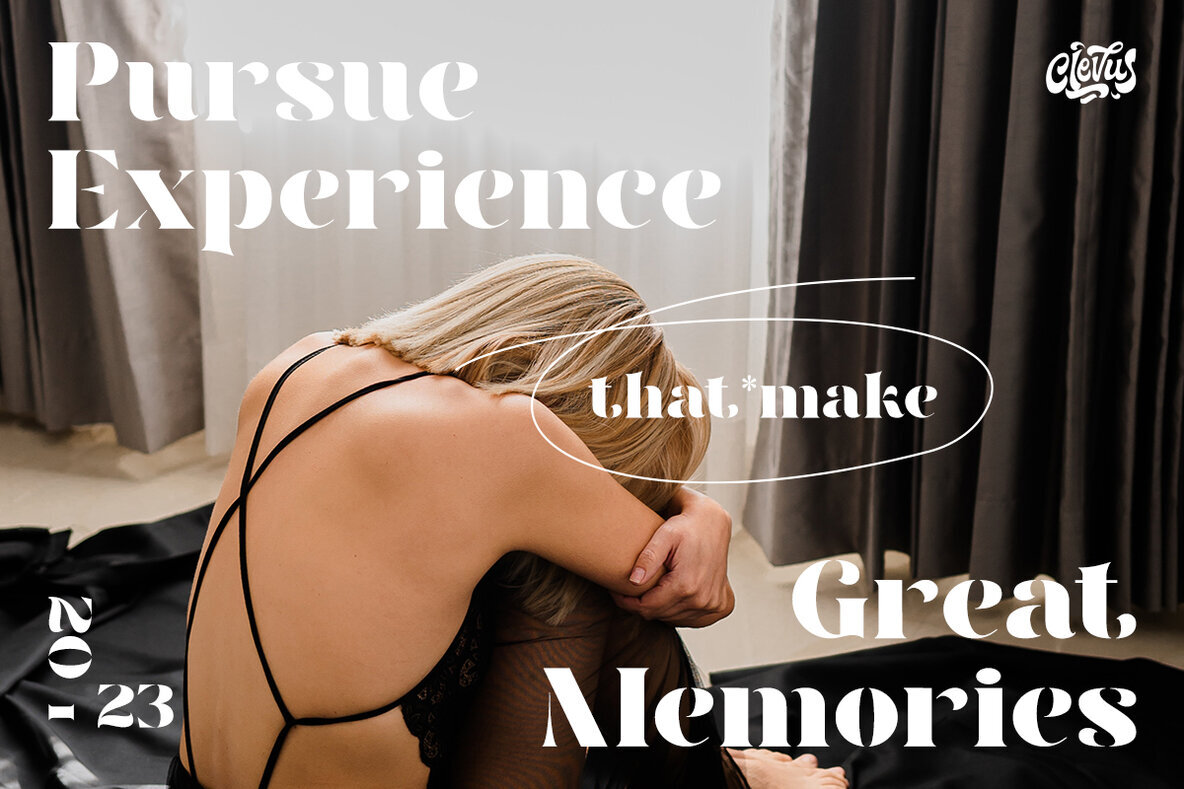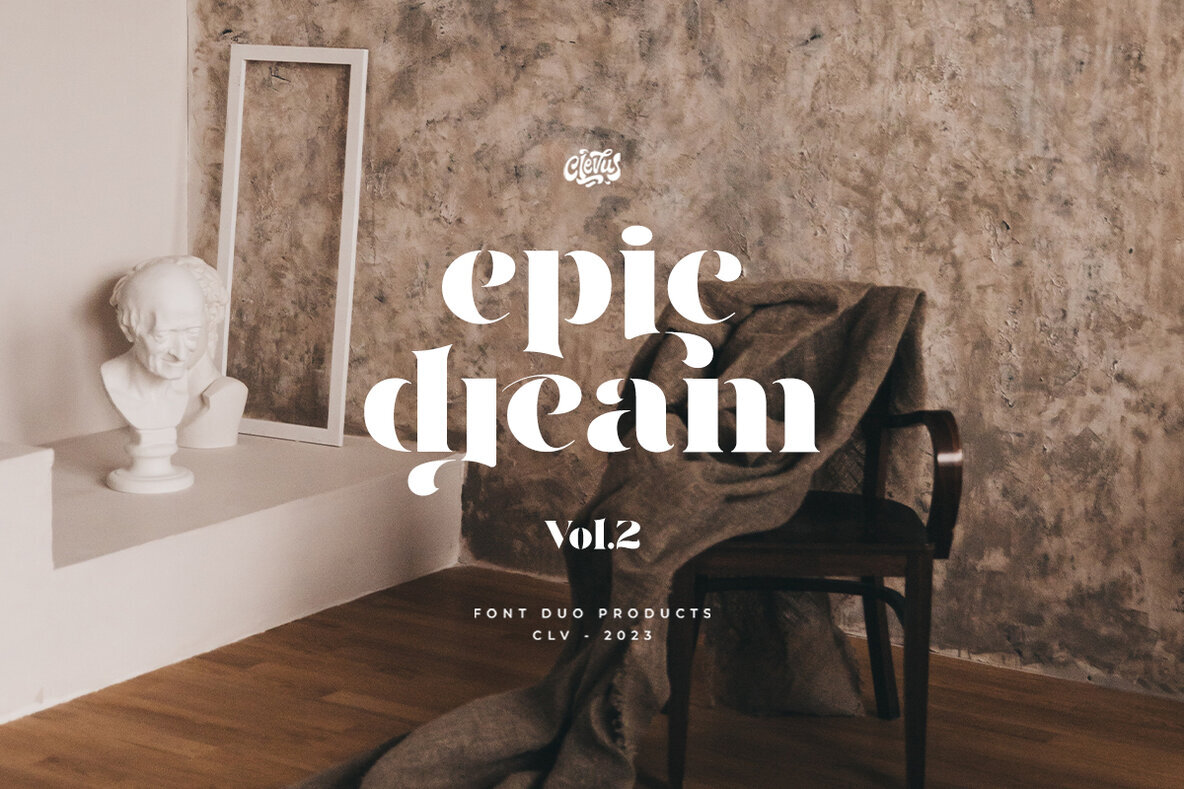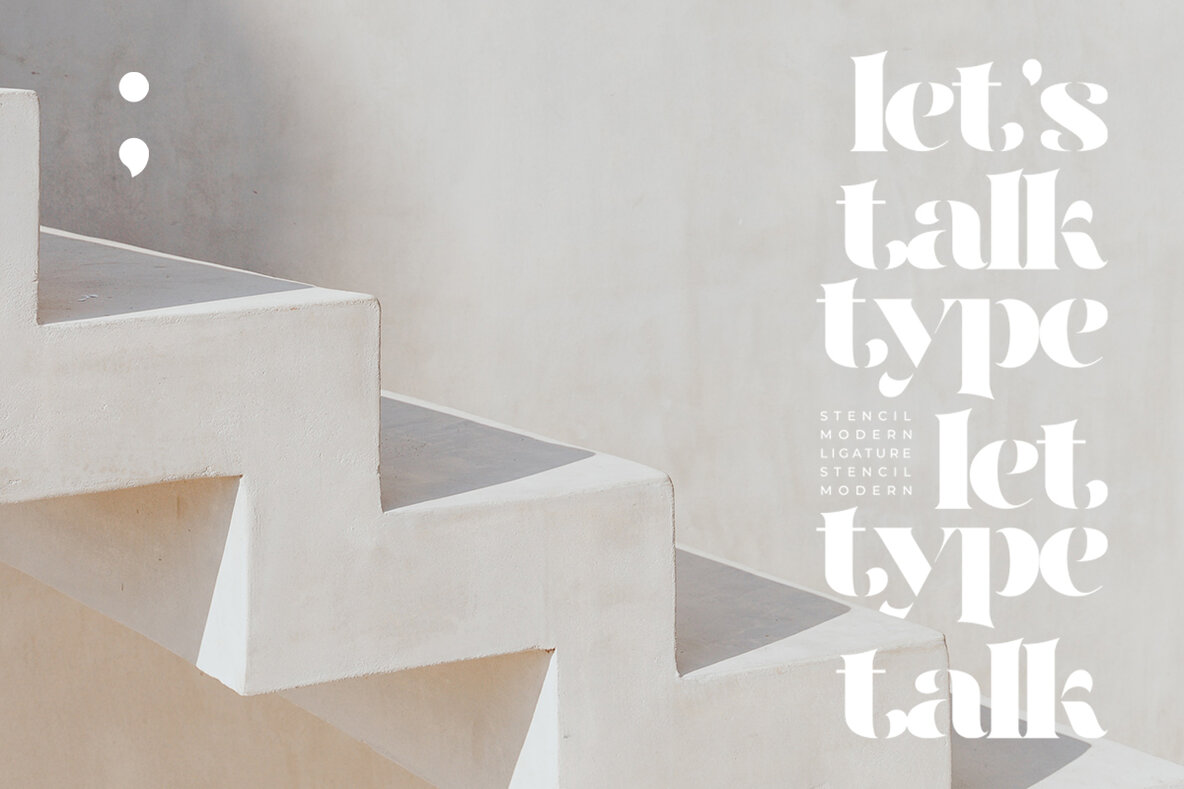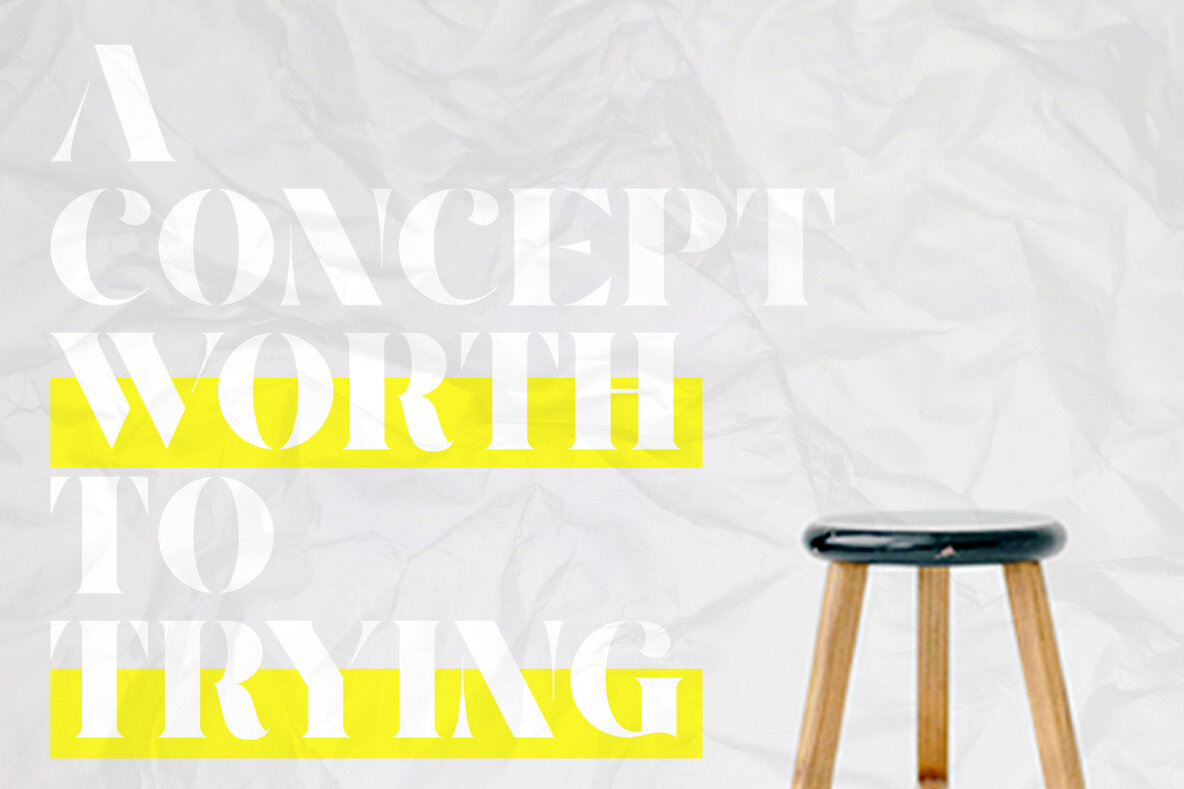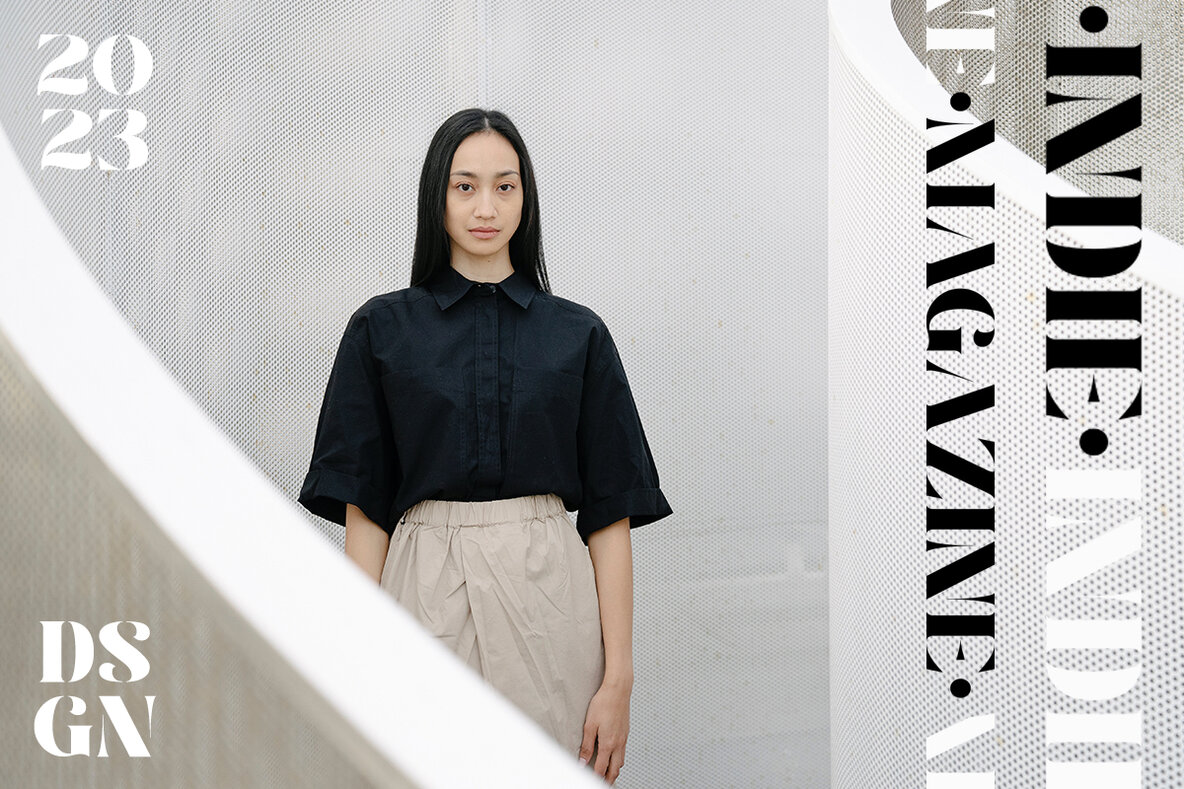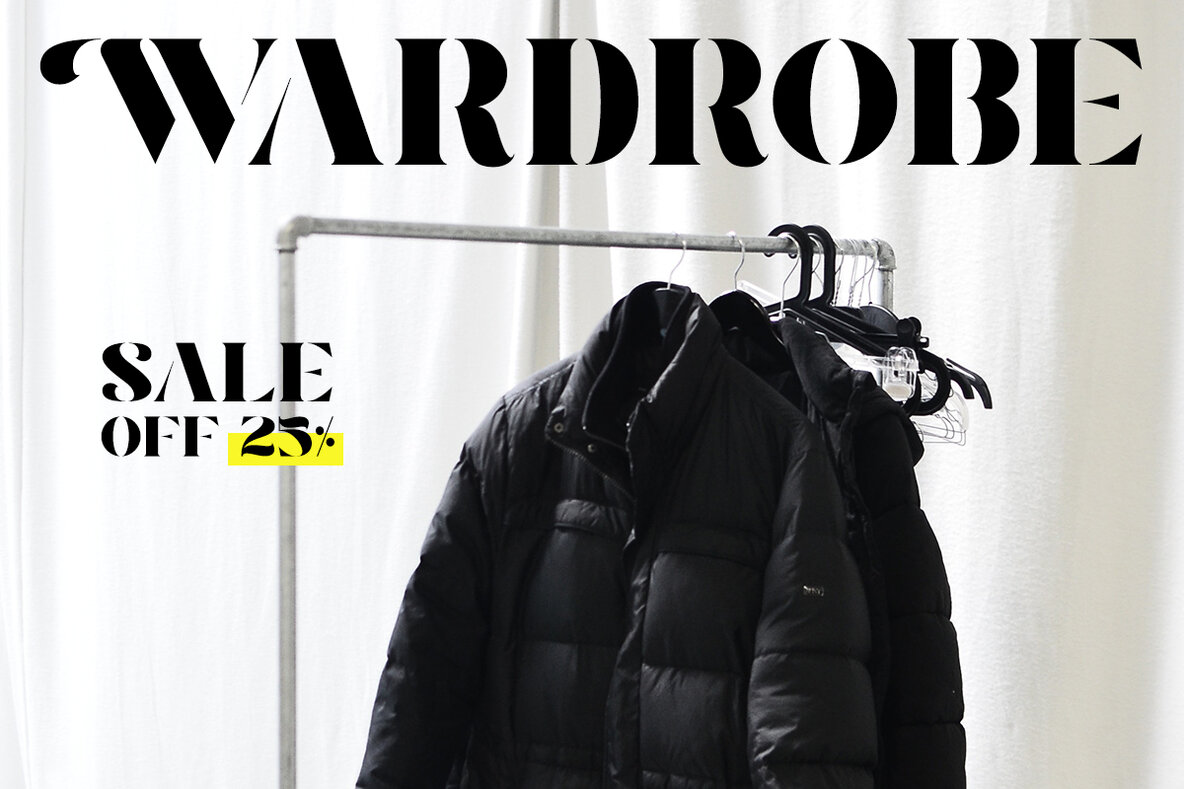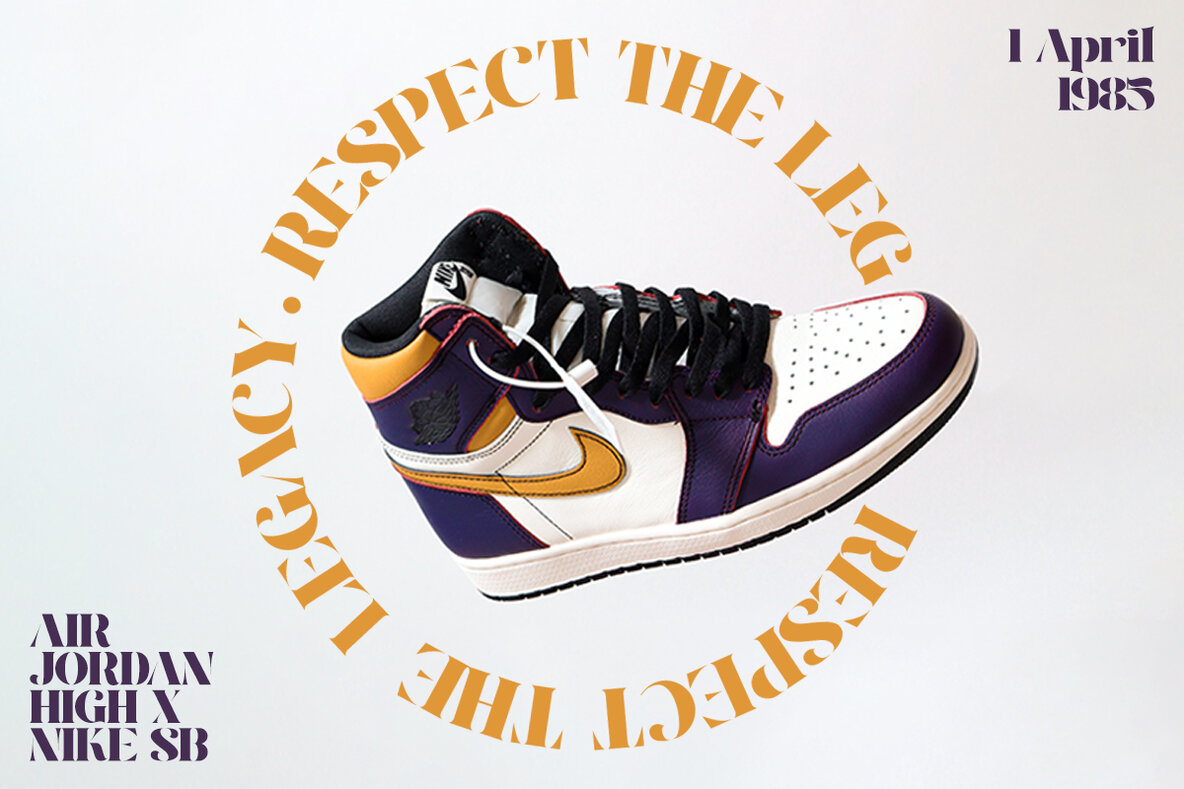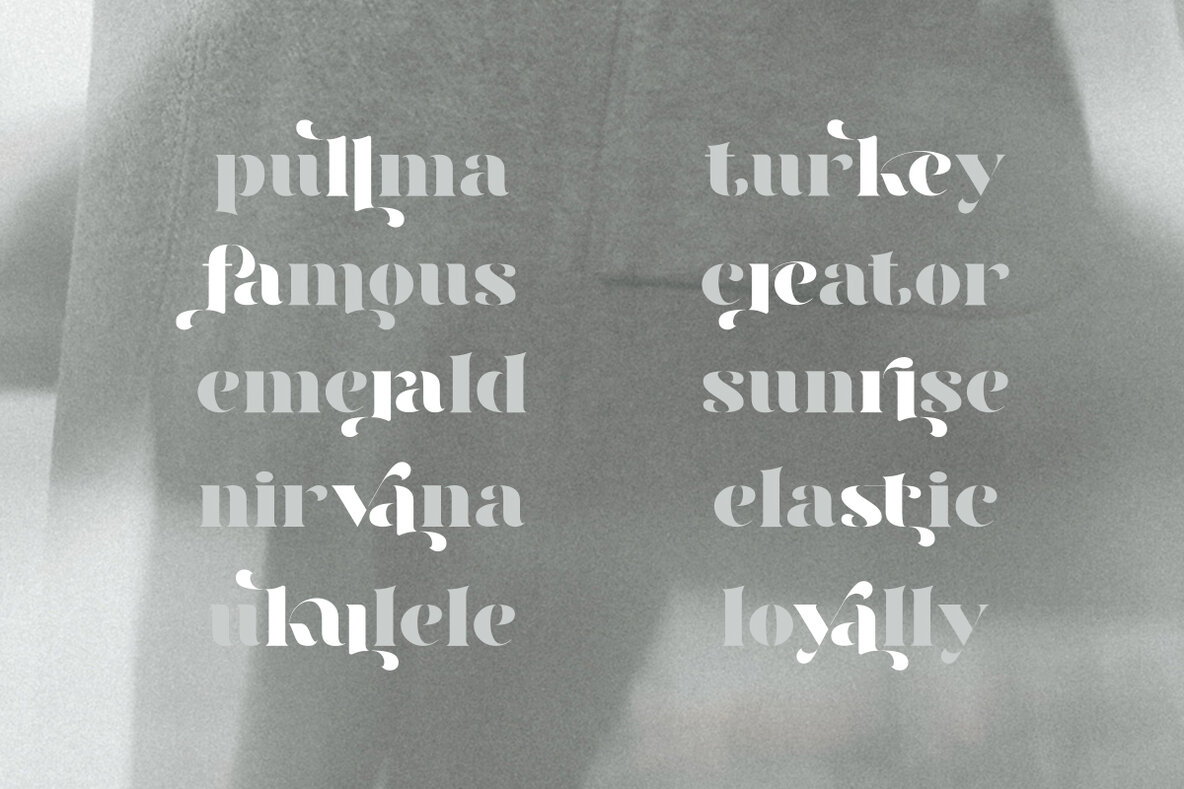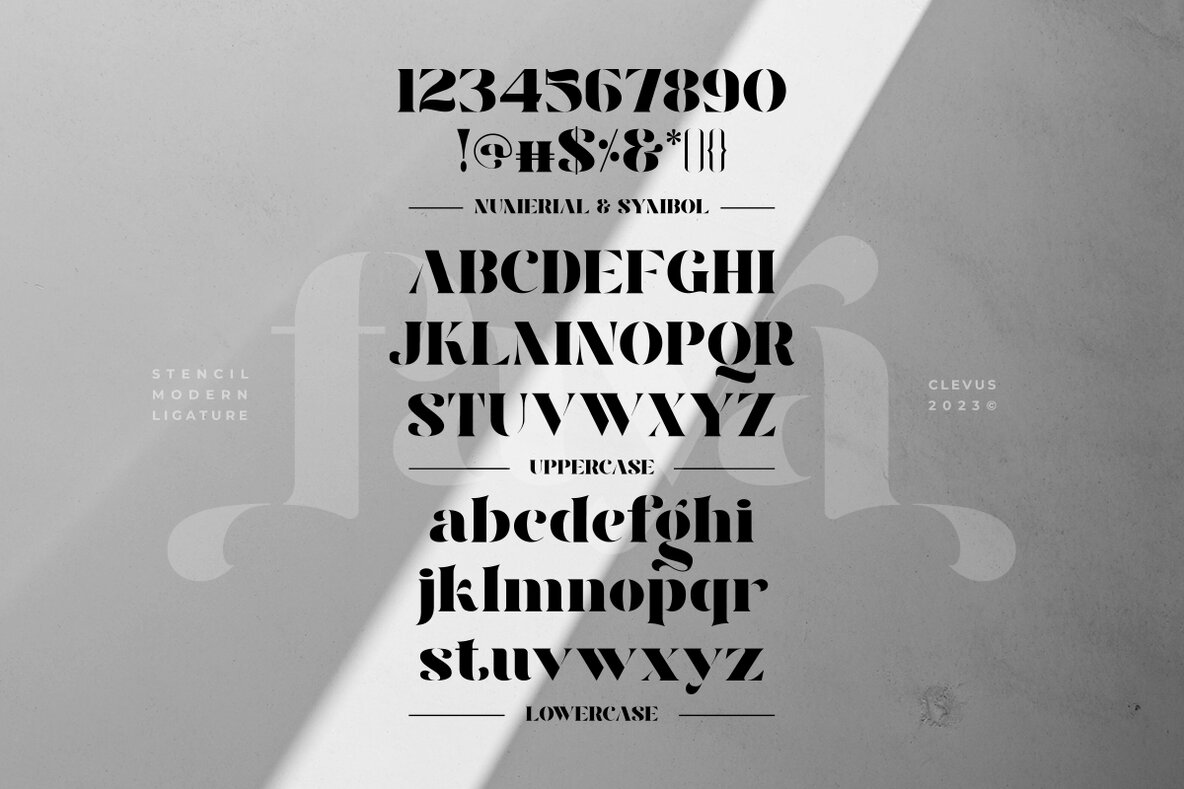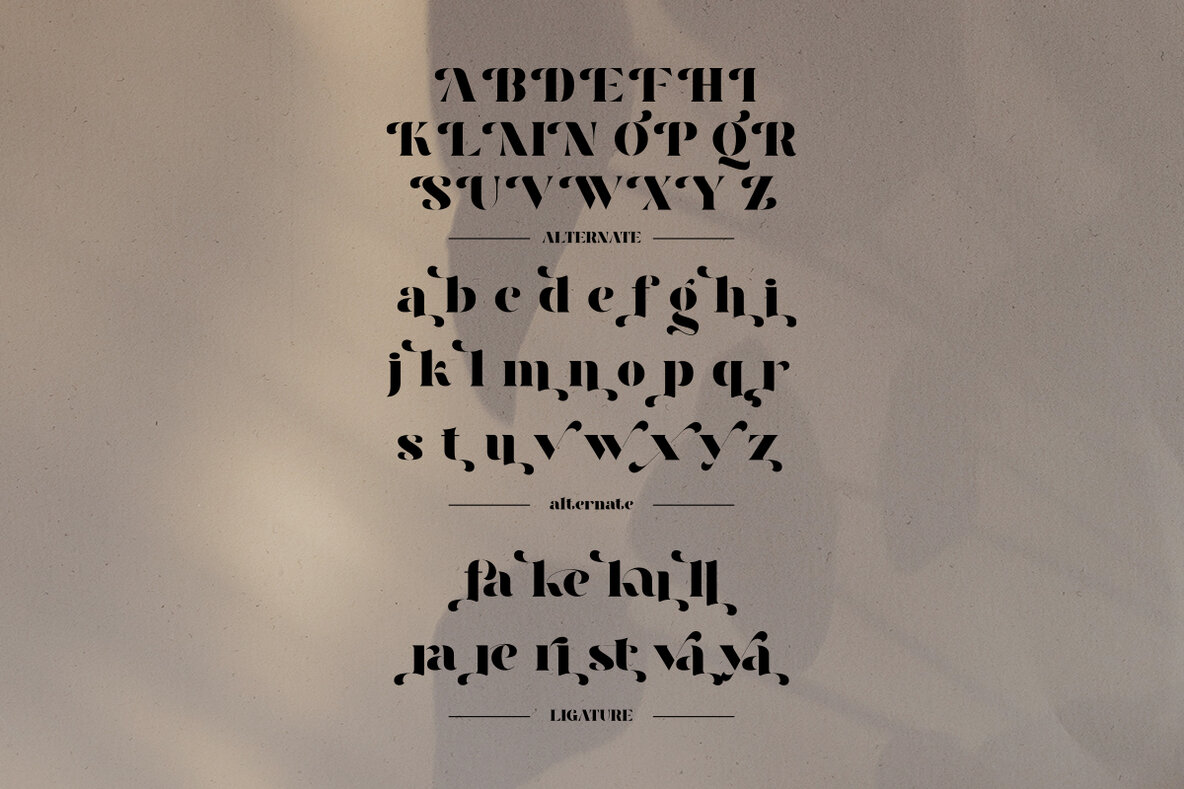
Faya Font
faya
Faya is a font designed with a modern stencil style that blends classic elements with elegant contemporary touches. Featuring ligatures that offer design flexibility, Faya is suitable for various graphic design needs, including posters, banners, logos, and more. Crafted with meticulous attention to detail, Faya's letterforms are bold, sharp, and geometrically-shaped, catching the eye with their visually appealing design. The font boasts high clarity and legibility, offering a range of different letter variations such as elegant uppercase and lowercase letters. With its clean yet stylish appearance, Faya is perfect for modern and minimalist design applications.
Don't forget to use all caps too in your mixing and matching - it adds contrast and impact to your type design.
Design tip: tighten your letter spacing for larger titles to create a range of looks.